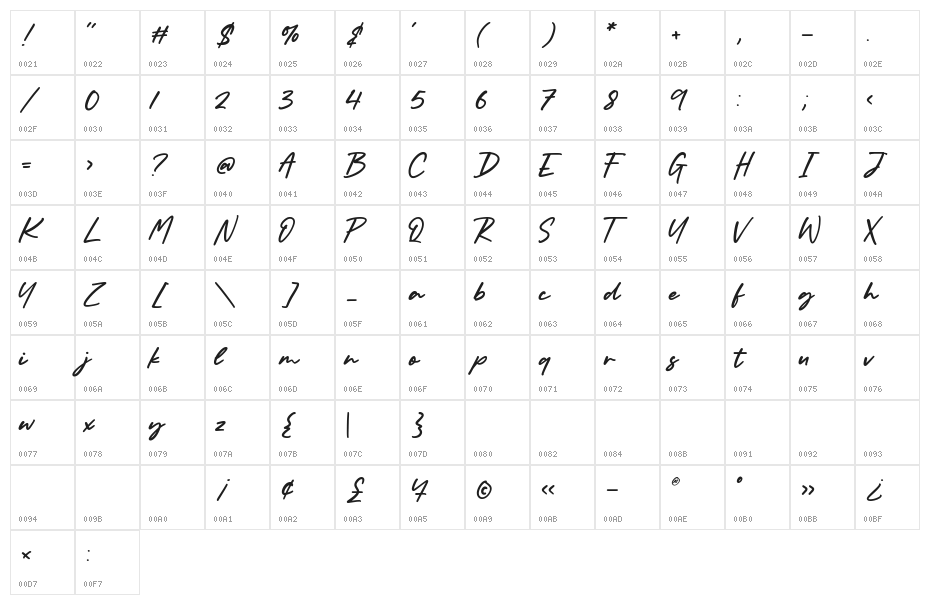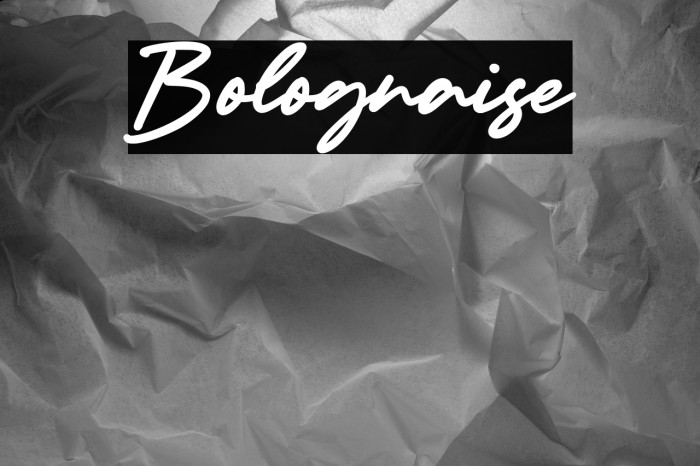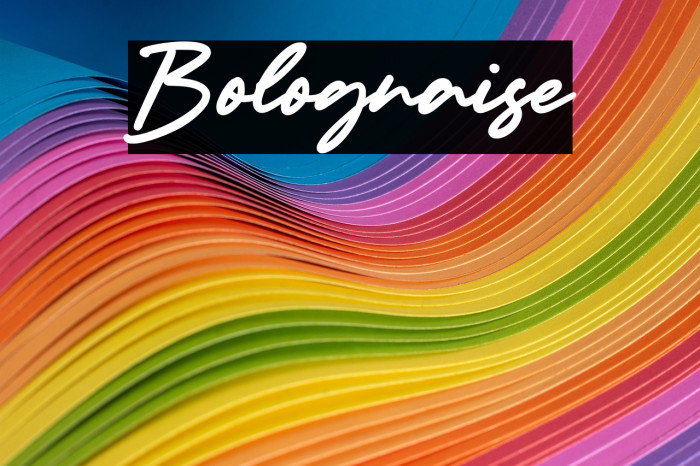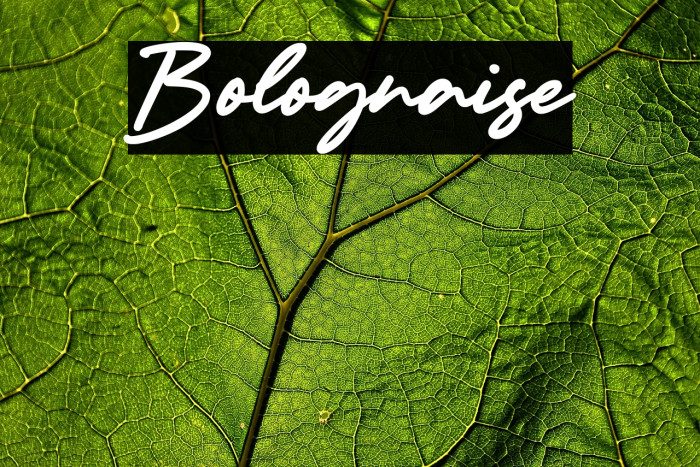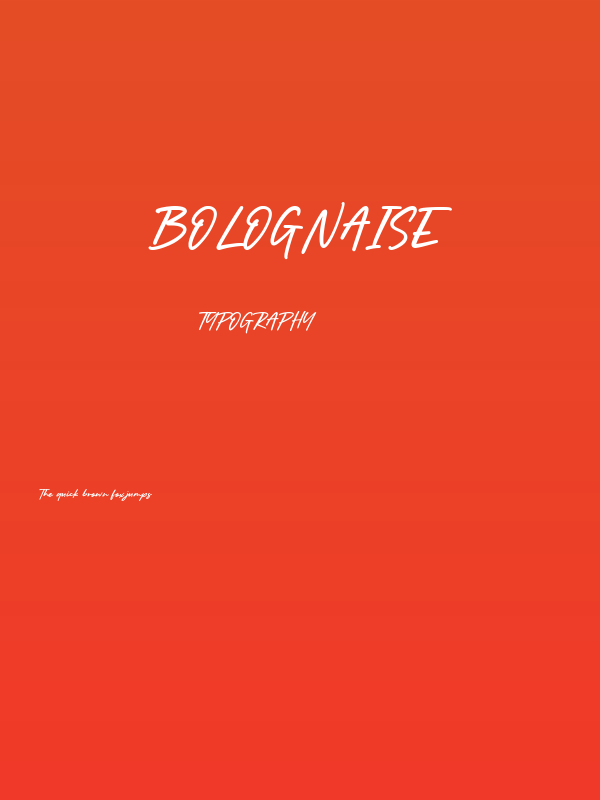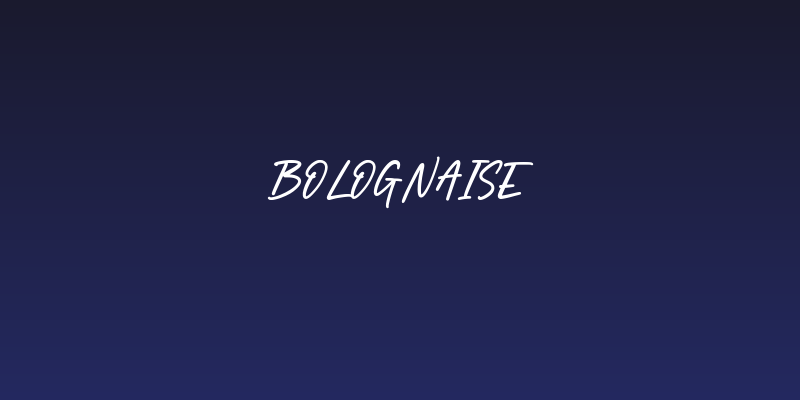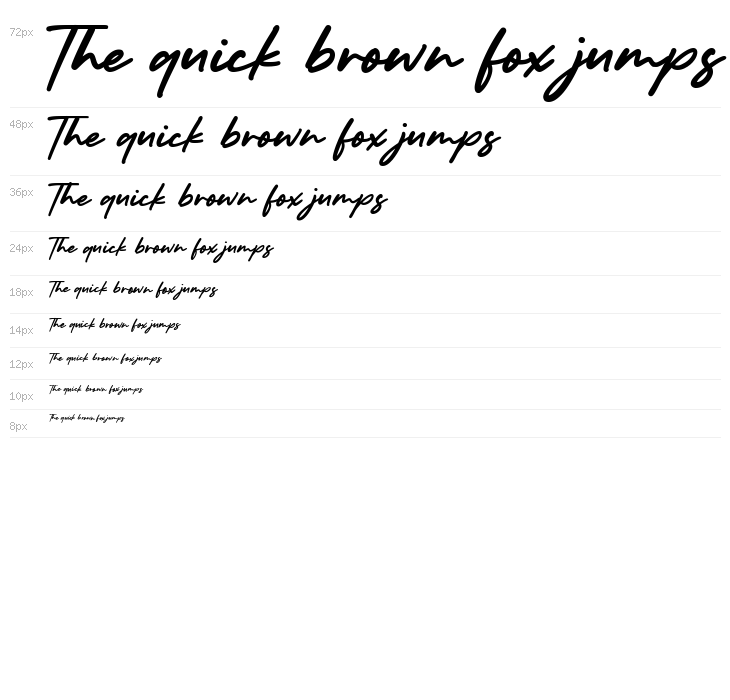
Bolognaise Font
Bolognaise Description
This font exudes a casual and flowing handwritten style, characterized by its smooth, cursive strokes that mimic natural handwriting. The letters are slightly slanted, giving a dynamic and lively feel. The uppercase letters maintain a consistent height, while the lowercase letters exhibit a playful bounce, adding to the font's informal charm. The numerals and special characters are crafted with the same fluidity, ensuring a cohesive look across all text. This font is ideal for projects that require a personal touch, such as invitations, greeting cards, or branding materials that aim to convey warmth and approachability.
| Proposed Projects | Ideal for invitations, greeting cards, and branding materials that require a personal touch. |